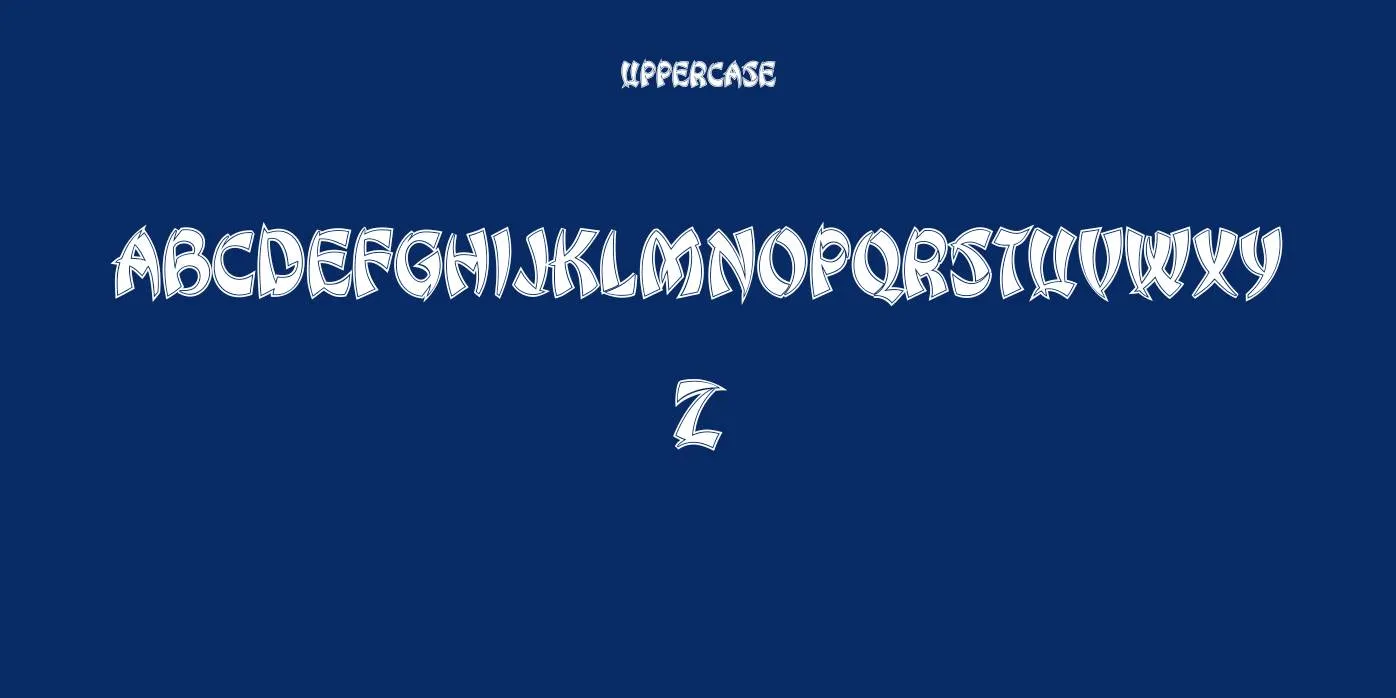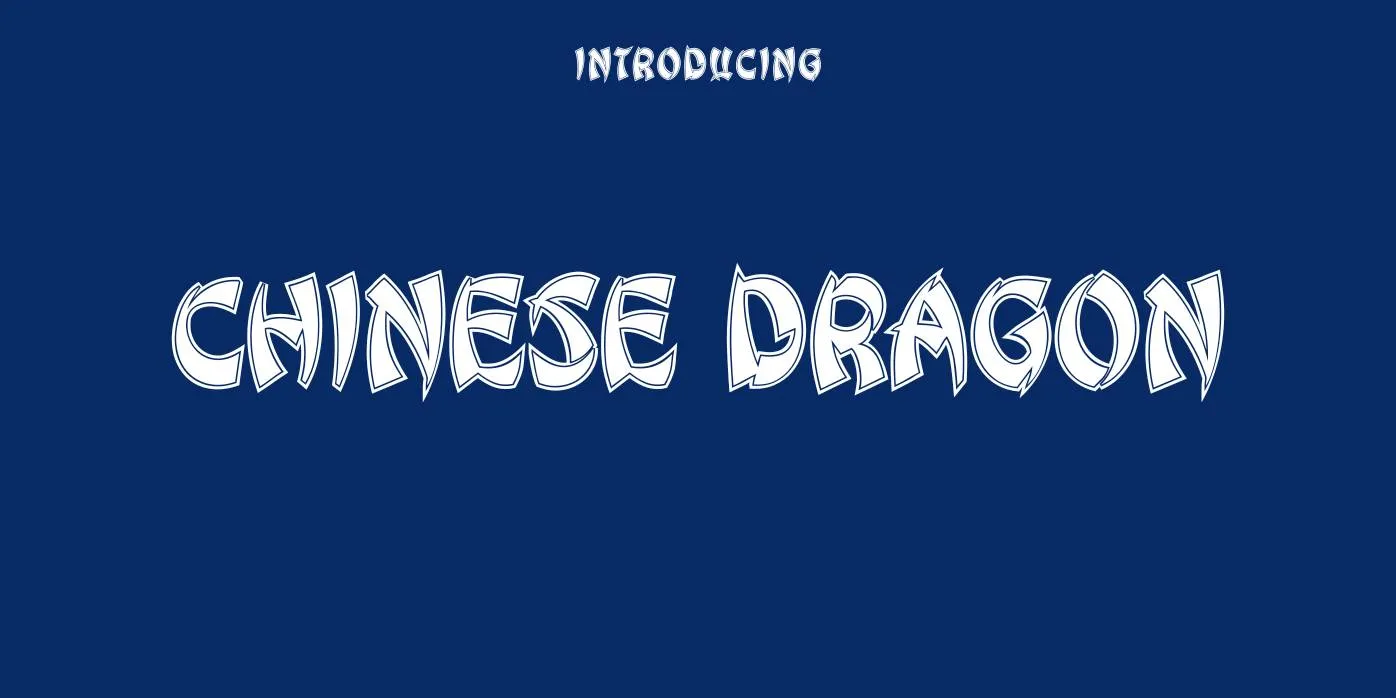
Chinese Dragon Font
Introducing you to a display type of font. Chinese Dragon Font is a display type of font. Vladimir Nikolic is the designer of this typeface. This typeface is available in both OTF and TTF file formats.
Moreover, this texture is free for personal projects and designs. Commercial use for this texture needs a license. This texture has an amazing look with sharp tips. These sharp tips increase the attractiveness of this typeface.
These characters are in capital letters, small letters, numbers, and punctuation. An online generator tool for this typeface will lessen your efforts. This tool can be beneficial for small projects. But when you are working on large projects then you should download this texture.